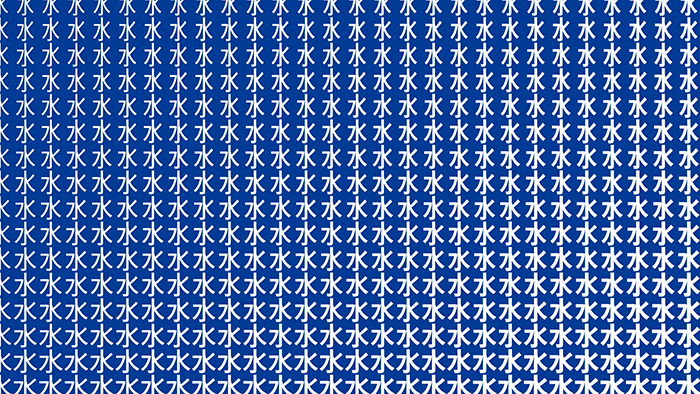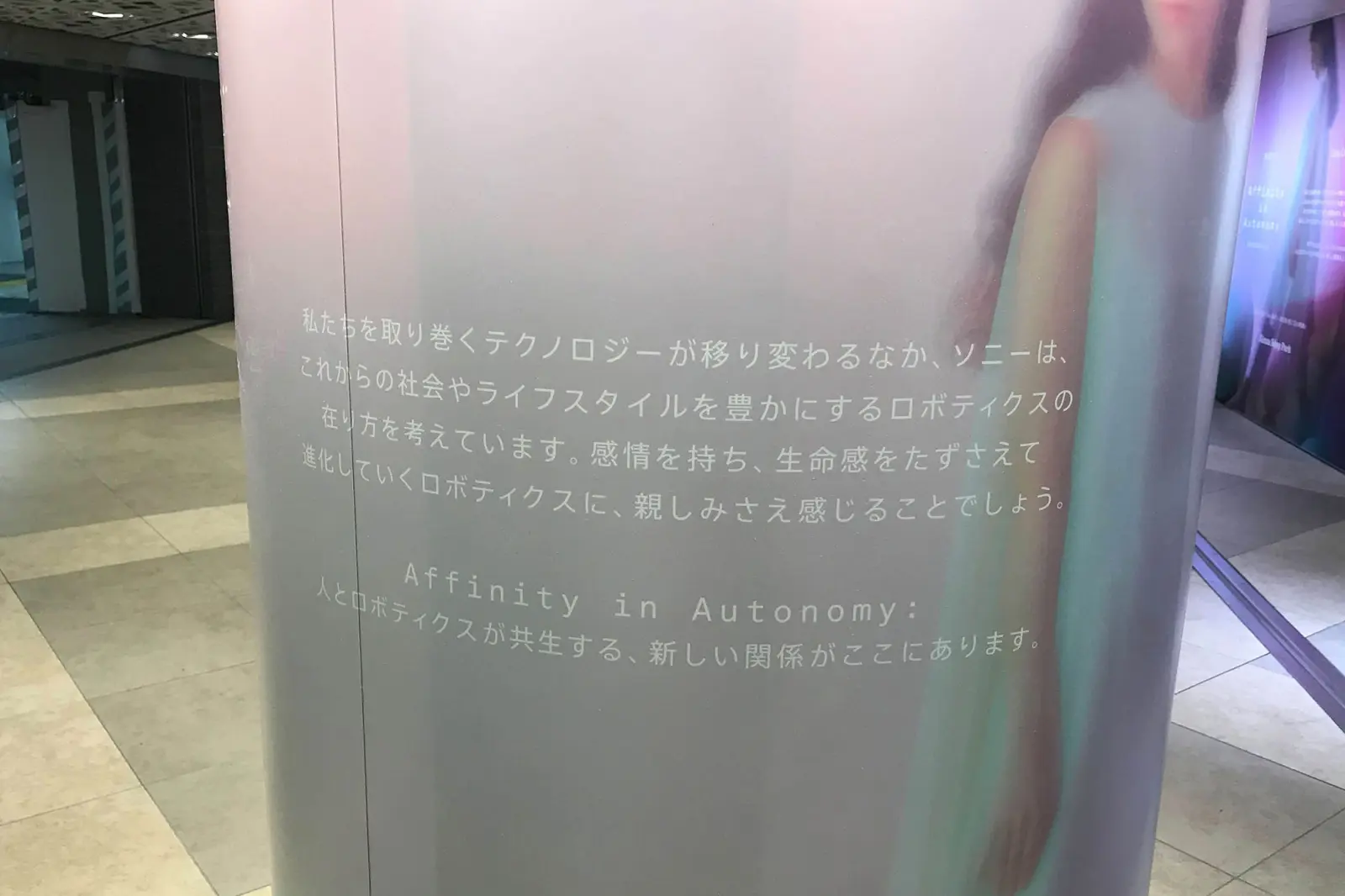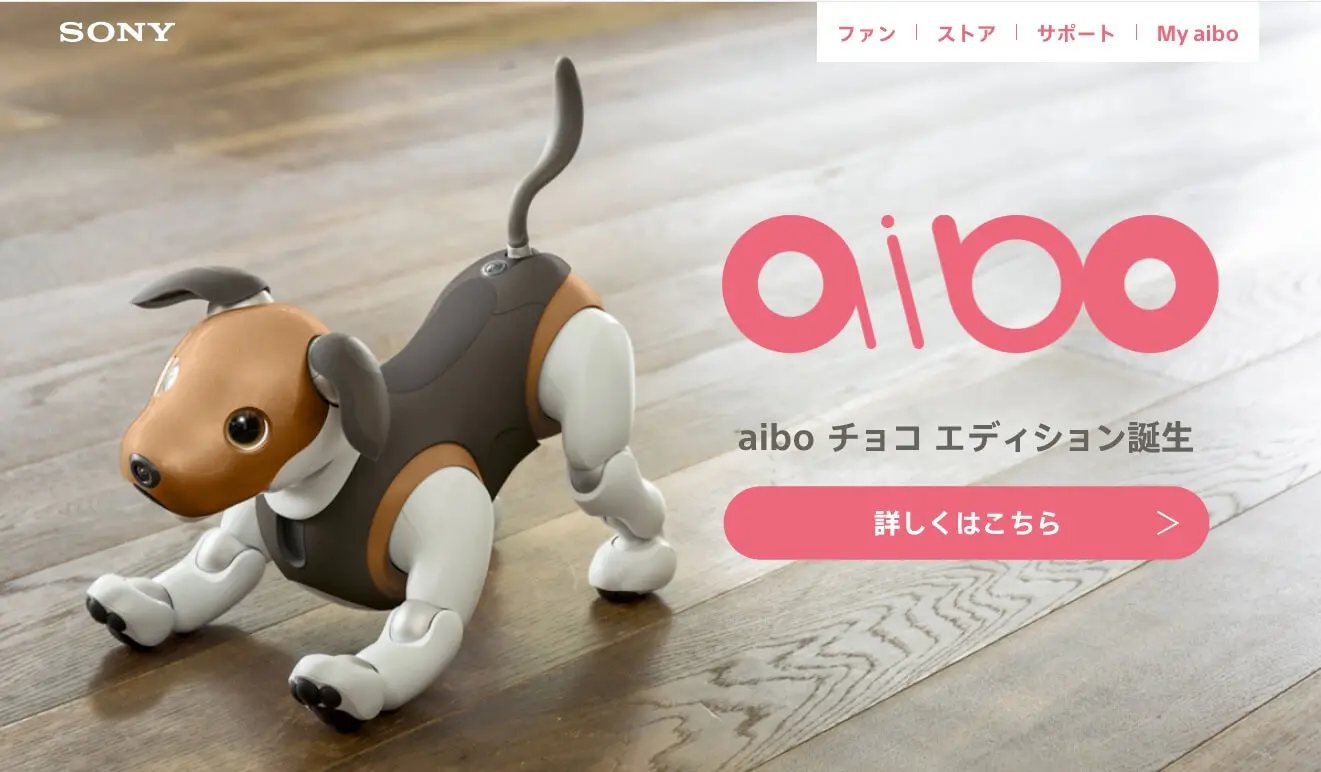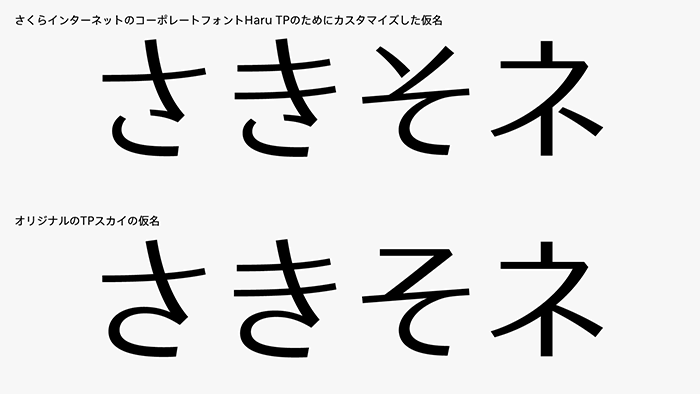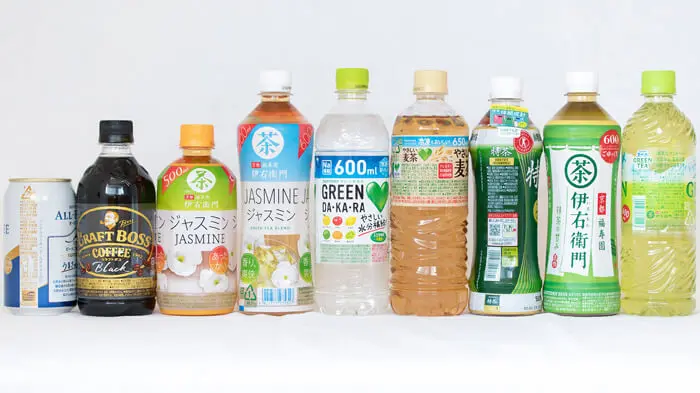
FitFont
Just as you adjust the volume
when listening to music,
we can adjust the font size and contrast.
Own technology for fine tuning
It possible to retain a balanced state with proper character proportions, even when the weight, contrast or character width is changed. It is capable of dynamic variations while still preserving design consistency and quality.
Original Hiragana or Katakana
AXIS Font, TP Mincho and TP Sky FitFont each have more than 1,000 variations. In addition, customization is available for recombining Latin or Kana fonts or developing original Hiragana or Katakana fonts.
Beautiful harmony
You realize the best combination of characters by adjusting AXIS Font, TP Mincho, or TP Sky to fit a Latin font. It realizes the company needs for the beautiful harmony of Japanese and Latin font, to achieve a higher representation.
Partner
We carry out fine adjustments to the Japanese font’s weight and width or contrast and deliver the optimal font for your needs in accordance with the Commercial Type, Production Type, Typetheque, Grilli Type, Dinamo or Blaze Type’s Latin font.
Steps for Combined font delivery
Proper balance between
Japanese and Latin font by FitFont
Maybe there’s no font on the market available in the weight you are looking for, or you want a font that’s different from what other companies are using. FitFont Service has been developed to respond to such needs. You can choose a font to be the voice of your company by adjusting the weight, width, contrast or space b/w strokes of AXIS Font, TP Mincho or TP Sky. By altering the alphabetic characters used in Japanese-language content situations and realizing a proper balance of Japanese and Latin font, you can completely transform the impression created by your company’s message. FitFont Service enables you to realize the best combination of characters by adjusting AXIS Font, TP Mincho or TP Sky to fit a given Latin font. For global-scale enterprises that specify the use of Latin corporate fonts, FitFont may be the perfect solution.